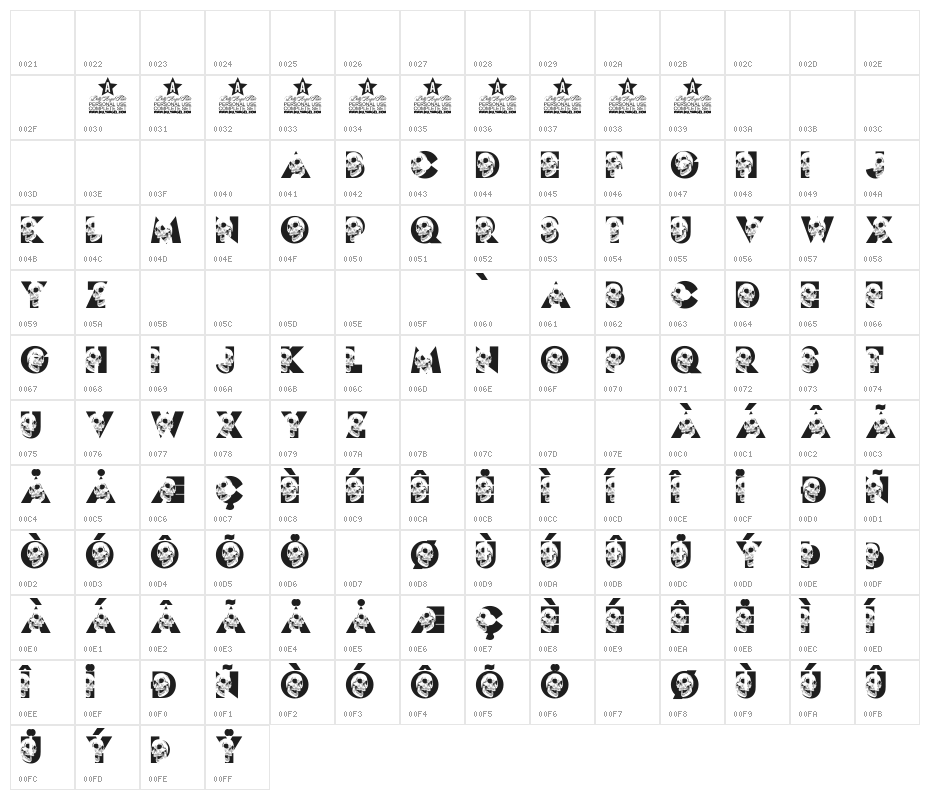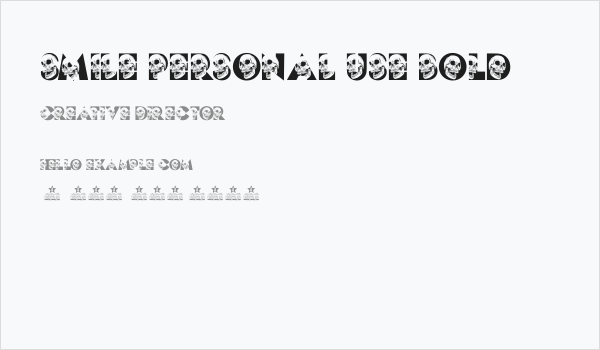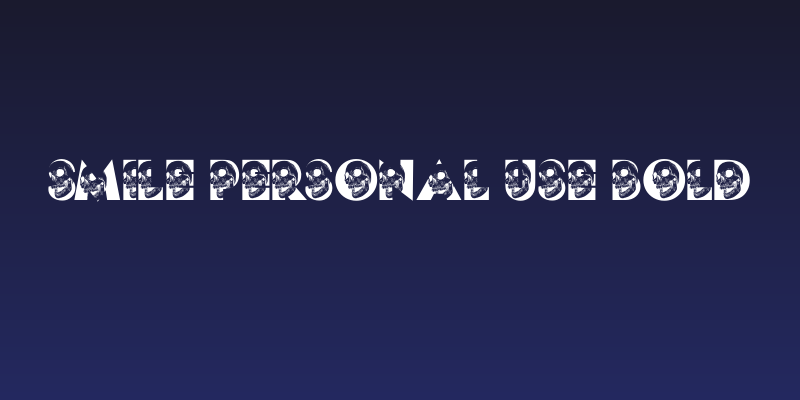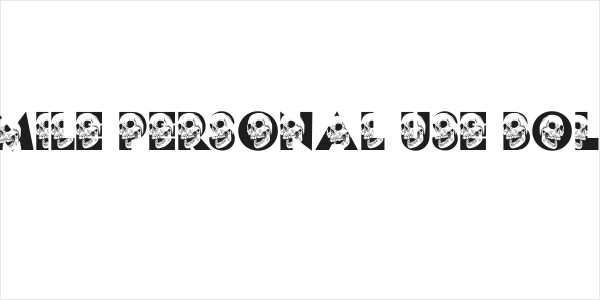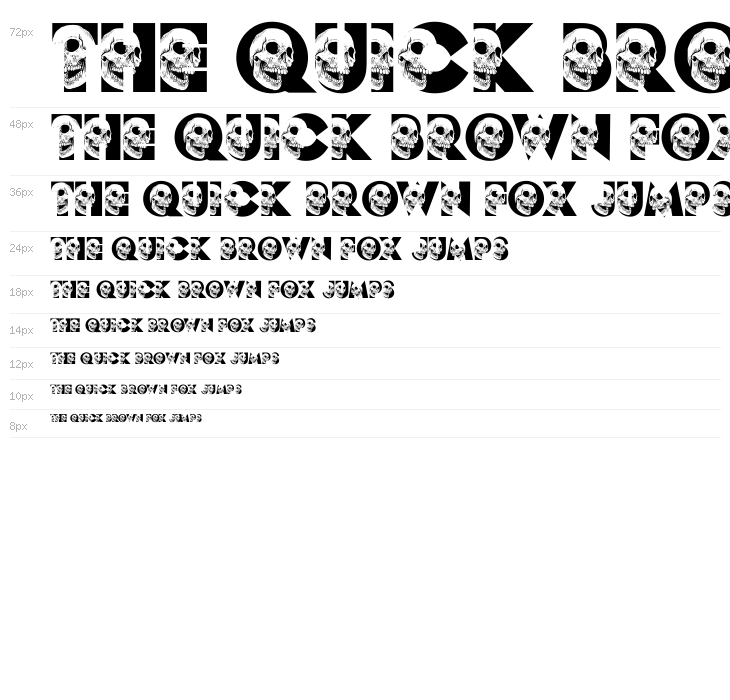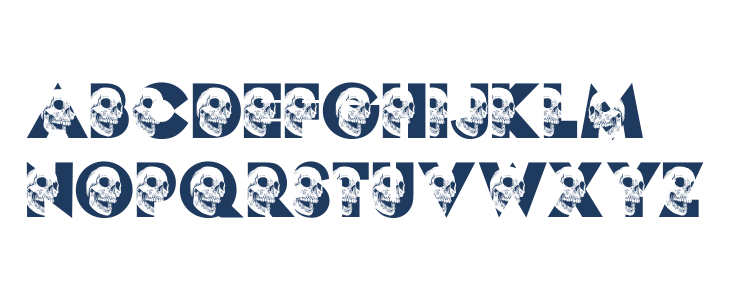
SMILE PERSONAL USE Bold Font
SMILE PERSONAL USE Bold Description
This bold and striking font features a unique design where each letter is integrated with a skull motif, creating a visually impactful and edgy appearance. The letters are uppercase and exhibit a strong geometric structure, with sharp angles and clean lines. The skulls are intricately detailed, adding a layer of complexity and interest to the overall design. This font is perfect for projects that require a bold statement or a touch of the macabre, such as Halloween-themed designs, rock band logos, or edgy fashion branding. The combination of bold lettering and detailed skulls makes it stand out, ensuring that any text set in this font will capture attention.
| Use Case | Logos, Headlines, Themed Events |
| Proposed Projects | Ideal for Halloween designs, rock band logos, edgy fashion branding, and any project needing a bold, attention-grabbing typeface. |